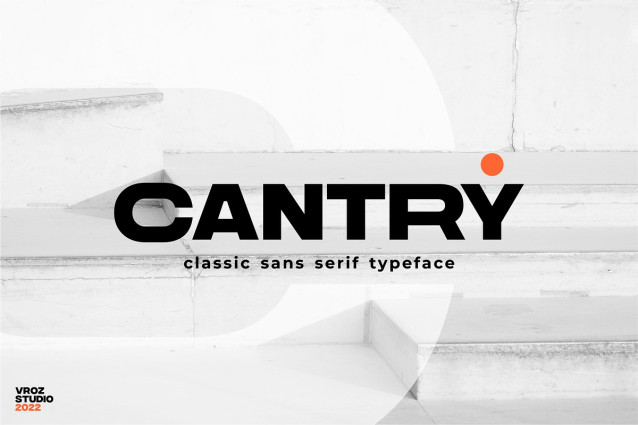
Cantry Font
Cantry Font is a strong bold sans serif, perfect for many project: fashion, magazines, logo, branding, photography, quotes, blog header, poster, advertisements, postcard, book, websites, etc.